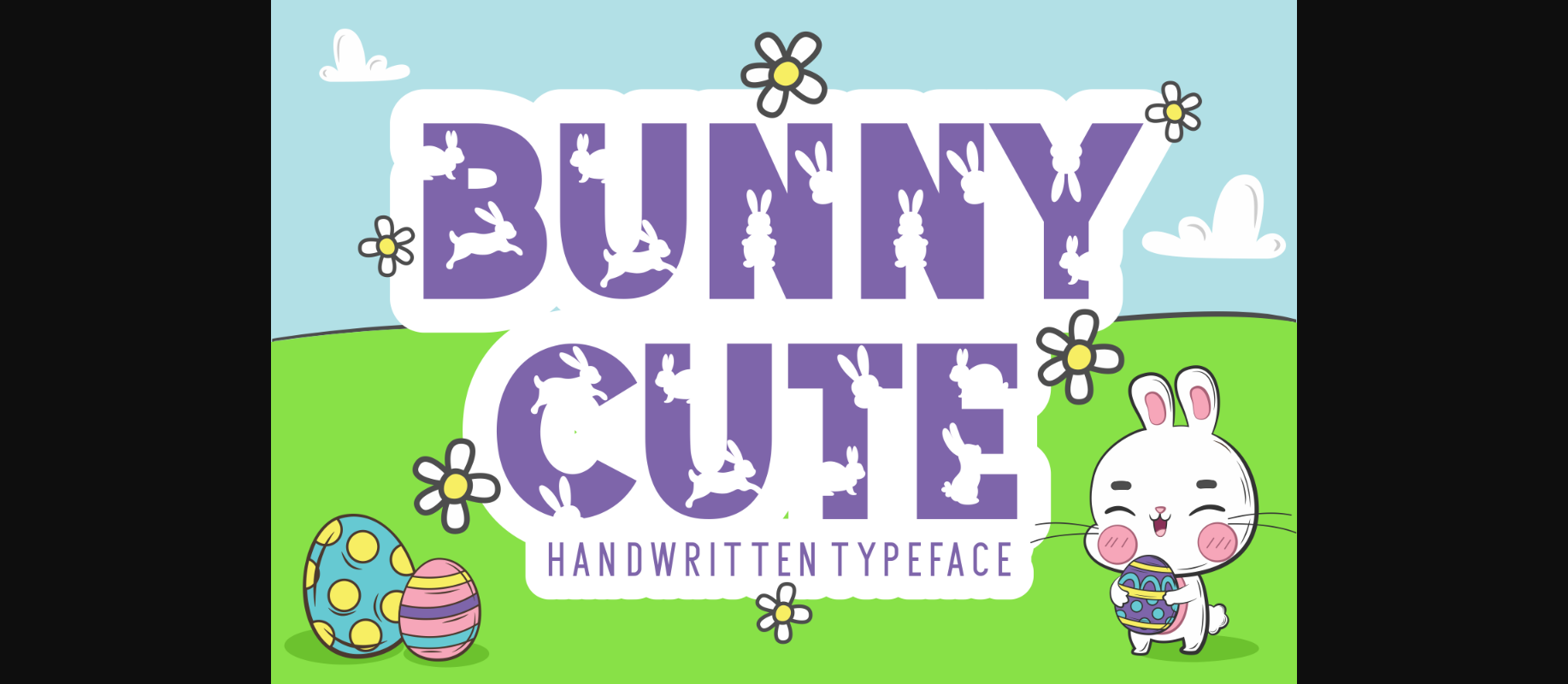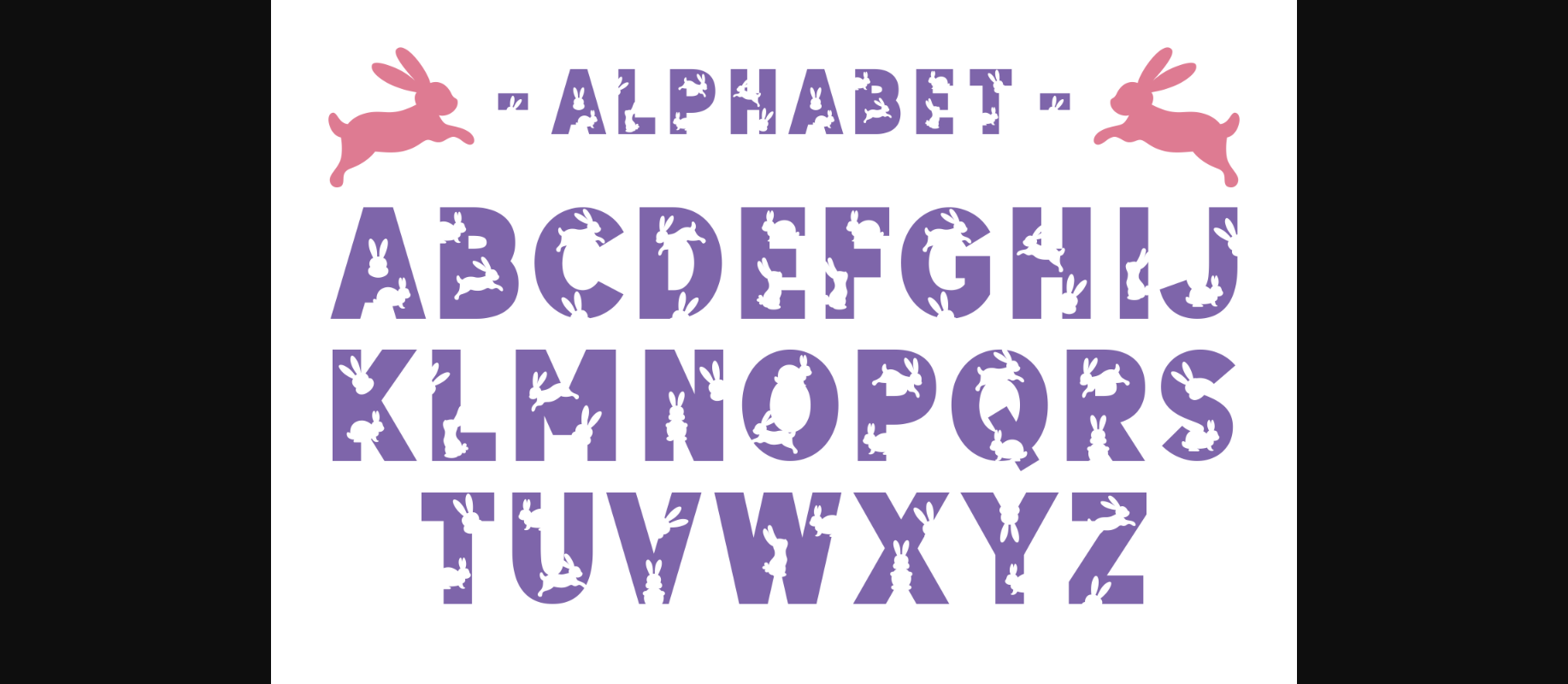
About Bunny Cute Font
Bunny Cute is a charming decorative font. Fall in love with its authentic feel and use it to create gorgeous invitations, beautiful stationary art, eye-catching social media posts, and cute greeting cards.